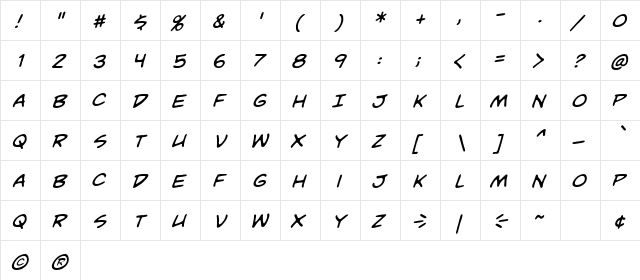
Unmasked BB Italic
| Foundry | Nate Piekos. Blambot.com |
| Designer | Nate Piekos |
| Year | 2010 |
Design Context for Unmasked BB Typeface
Unmasked BB is a composed and adaptable typeface that performs quietly and consistently across a wide range of design contexts. The slanted form adds forward momentum and visual energy.
Pro Tip: Try Unmasked BB for annotation and caption copy alongside an upright companion — the contrast in angle creates a dynamic but ordered typographic system.